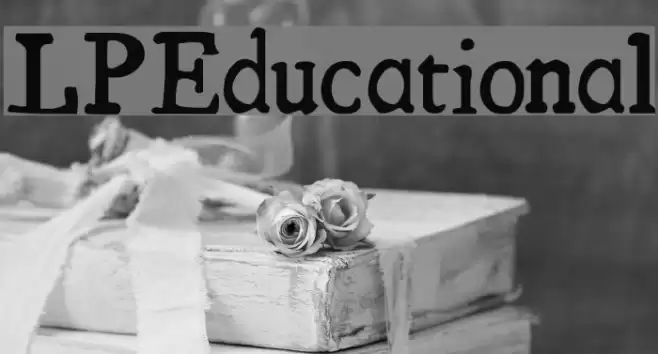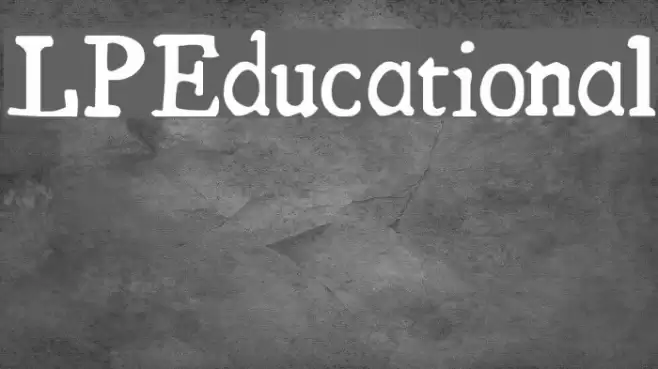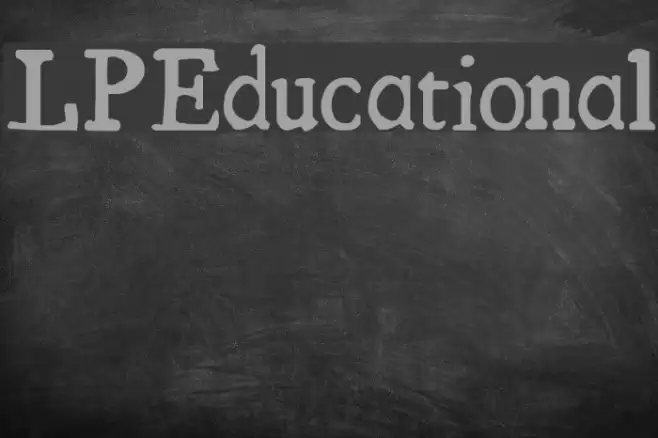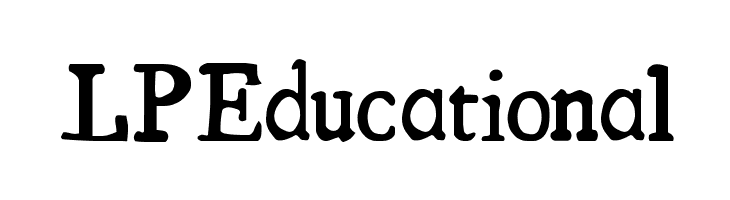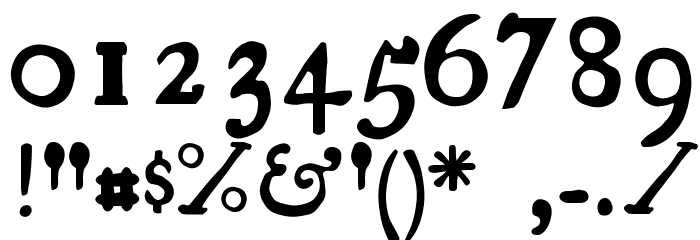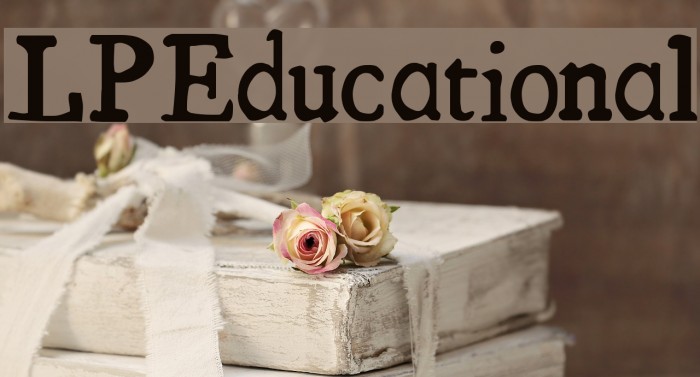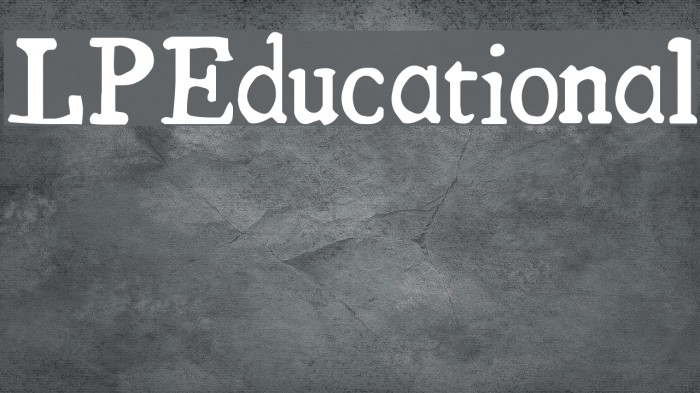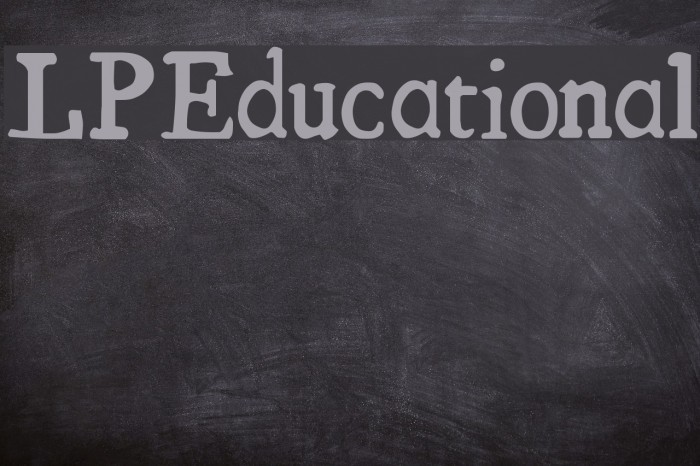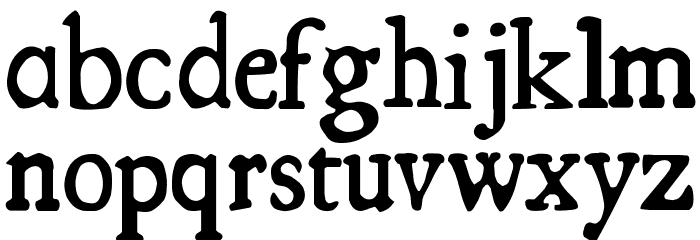
LPEducational
This font features a classic serif style with a playful twist. The uppercase letters are bold and prominent, with distinct serifs that add a touch of elegance. The lowercase letters maintain a consistent style, with some characters like 'g' and 'y' having unique, whimsical tails. The numerals are clear and easy to read, with a slight curve that adds character. Special characters are well-integrated, maintaining the overall aesthetic. The font's design is both traditional and fun, making it versatile for various uses.
A playful serif font with bold characters and whimsical details.
- Proposed Projects: Ideal for children's books, educational materials, playful branding, and creative projects.
- Category: Serif
- Overall Style: Classic
- Use Case: Headlines, Logos, Educational materials